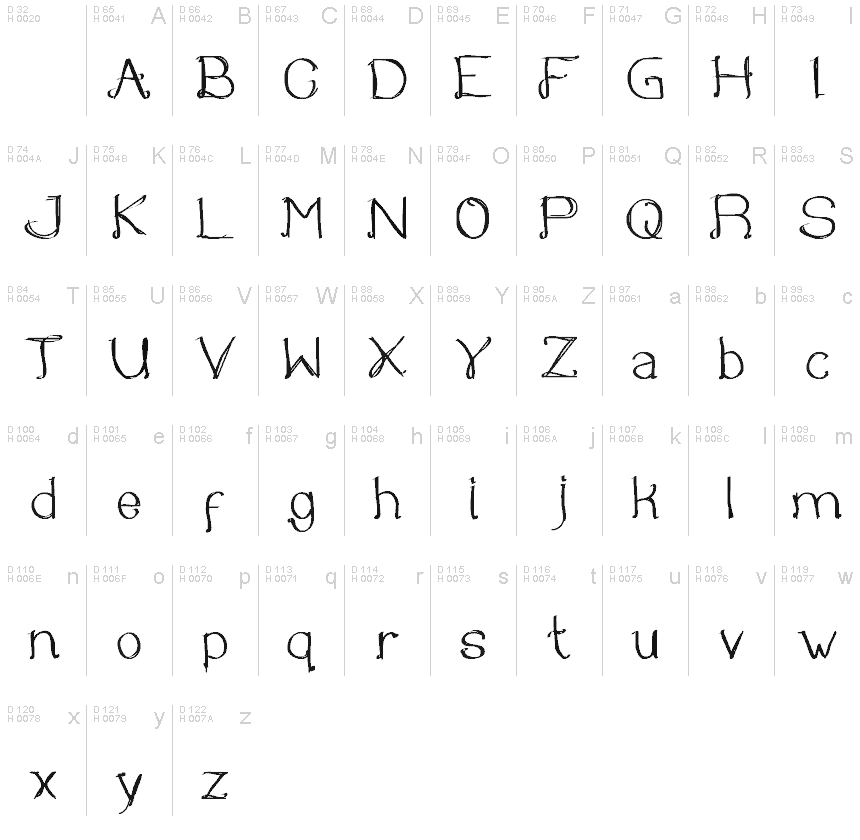
Once Upon a Time
"Once Upon a Time" is a captivating script font that evokes a sense of whimsy and nostalgia. Its playful, hand-drawn aesthetic is defined by the organic, uneven strokes and stylized lettering that give the font a delightfully imperfect charm. The varied line widths and slight irregularities in the letterforms add depth and character, creating an impression of handcrafted elegance.
This font's versatility shines through in its ability to lend a touch of enchantment to a wide range of design applications, from storybook covers and wedding invitations to rustic labels and vintage-inspired branding. Its unique personality can transform ordinary text into a visually engaging and memorable experience, making it an exceptional choice for designers seeking to infuse their projects with a touch of timeless allure.